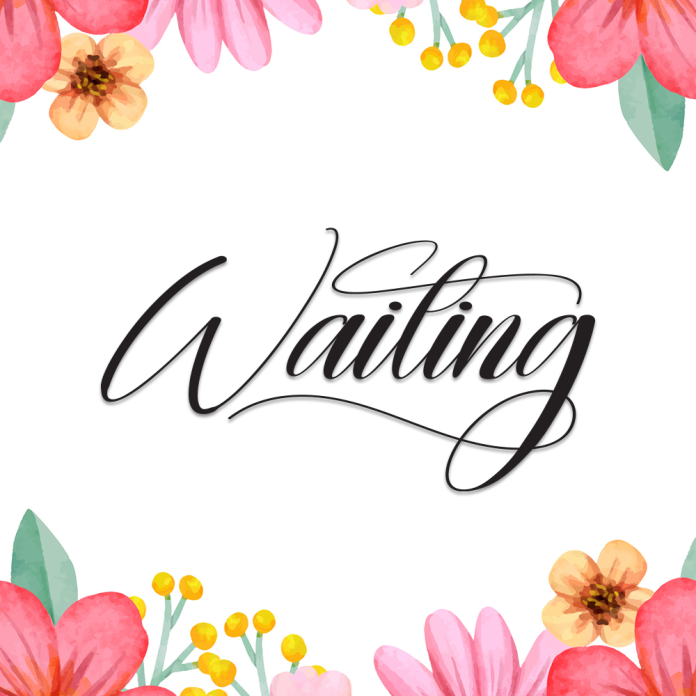
Waiting is a soft and thoughtful handwritten font that carries a sense of stillness, reflection, and gentle emotion. Its flowing strokes and understated elegance make it ideal for journals, letters, poetry collections, branding projects, and heartfelt social media posts.
Calm and neat handwritten appearance
Ideal for romantic or introspective themes
Works beautifully in greeting cards, stationery, and quote designs
Let your words breathe and bring emotion to the page with the poetic and peaceful touch of Waiting.